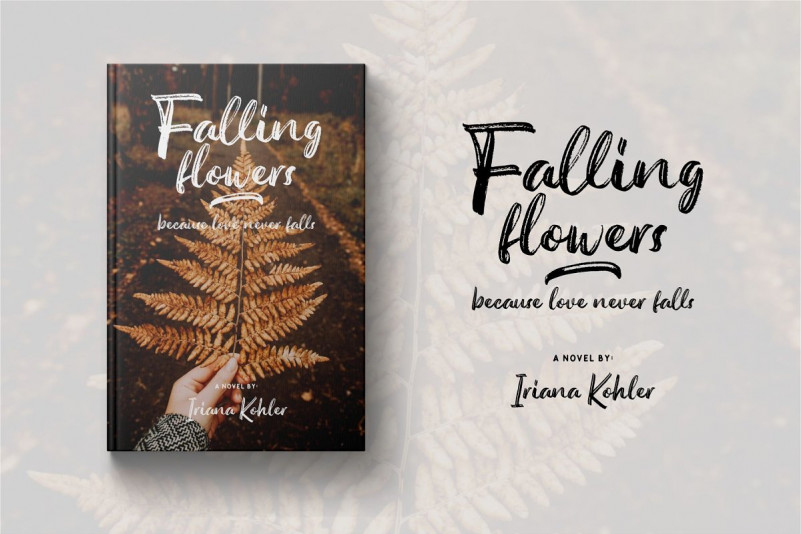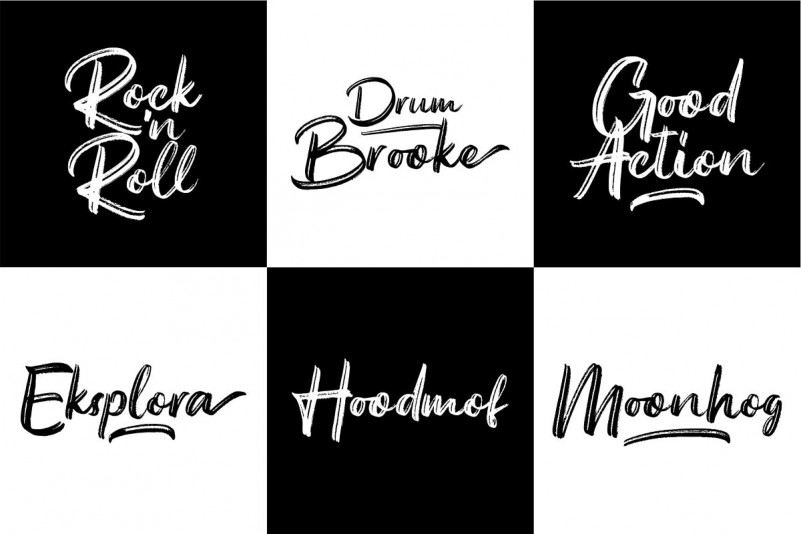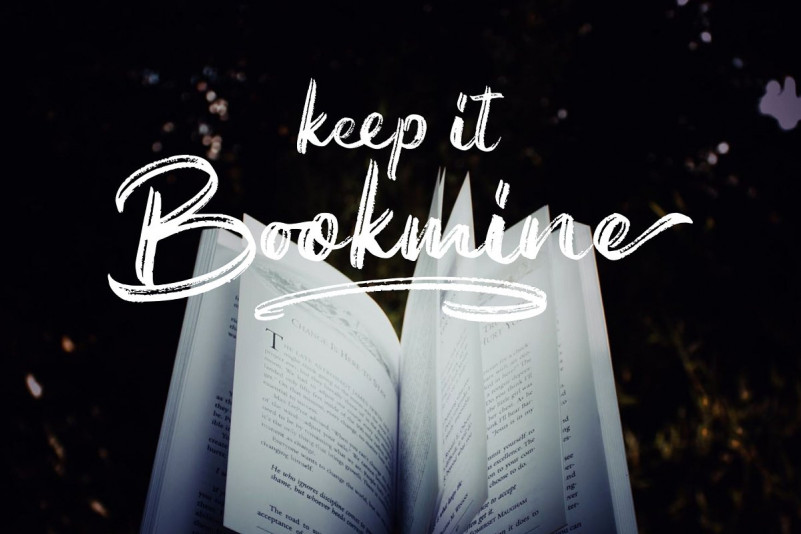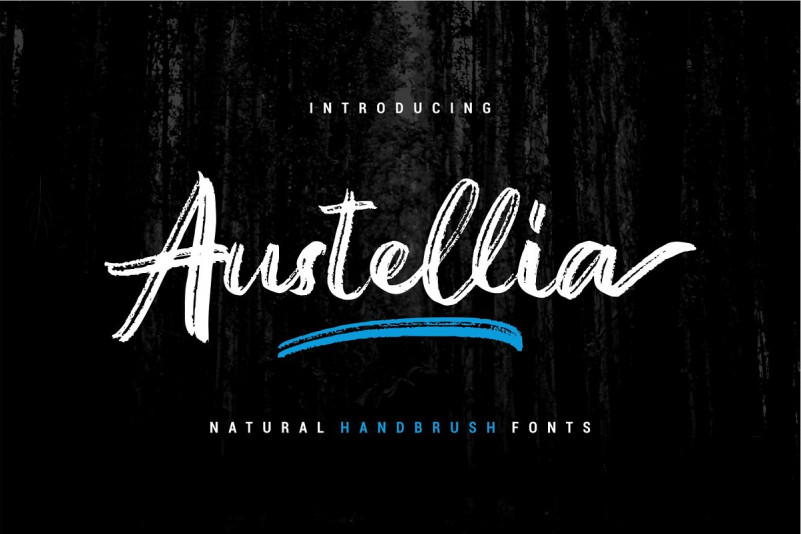
Austellia Handbrush Font
This is handbrush script font with dry brush and signature style. Where is your next destination? Starts your journey! Proudly presents latest product Austellia Brush Font! It is designed and shared by Garisman Std. Austellia Handbrush Font is made with natural handbrushes. With the unique Opentype in it and the ligature will add aesthetic value to your design product. Available in this file are Austellia Fonts and also Swash which you can unite into an amazing design.